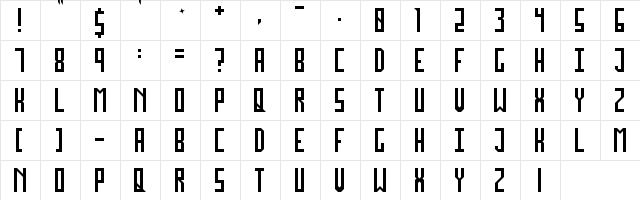
Jocko Mongo Regular
Design Context for Jocko Mongo
Jocko Mongo is a composed and adaptable typeface that performs quietly and consistently across a wide range of design contexts.
Pro Tip: Use Jocko Mongo in both headline and body roles to test its range before committing to a single application.